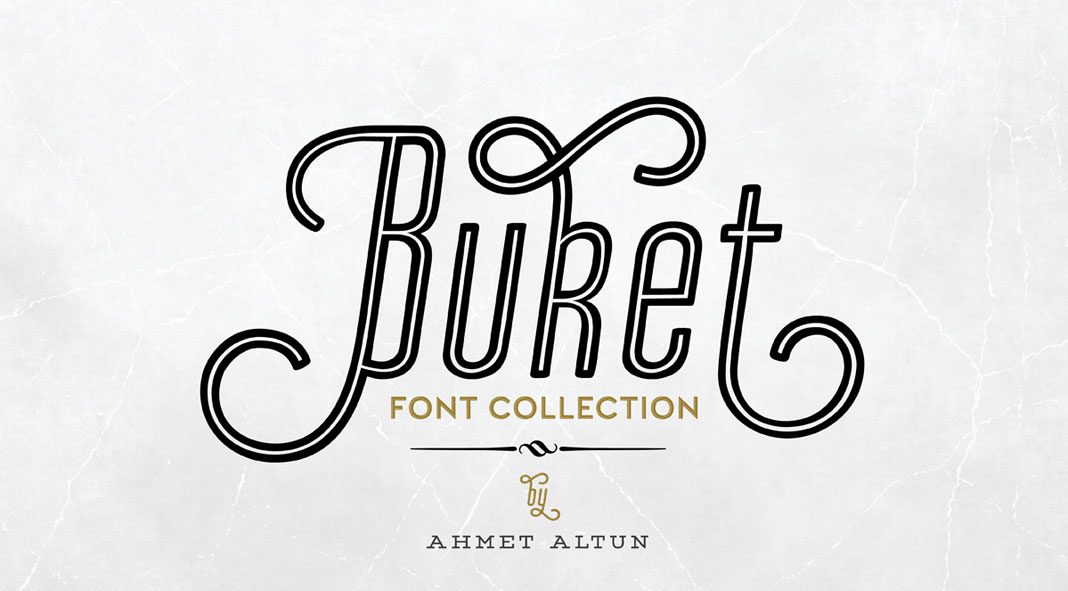
Buket, a multiple classification font collection designed by Ahmet Altun.
Izmir, Turkey based type designer Ahmet Altun has recently published the diverse Buket font collection. The family comprises 18 different styles plus lots of decorative ornaments. Mainly designed for display use, the diverse Buket fonts are well suited for plenty of applications such as poster designs, invitations, greeting cards, web projects, and much more. Please note, the complete family is currently available as “super saver” introductory offer on Fontspring (only for a very limited time). For additional information on all features and styles, please follow the link below.